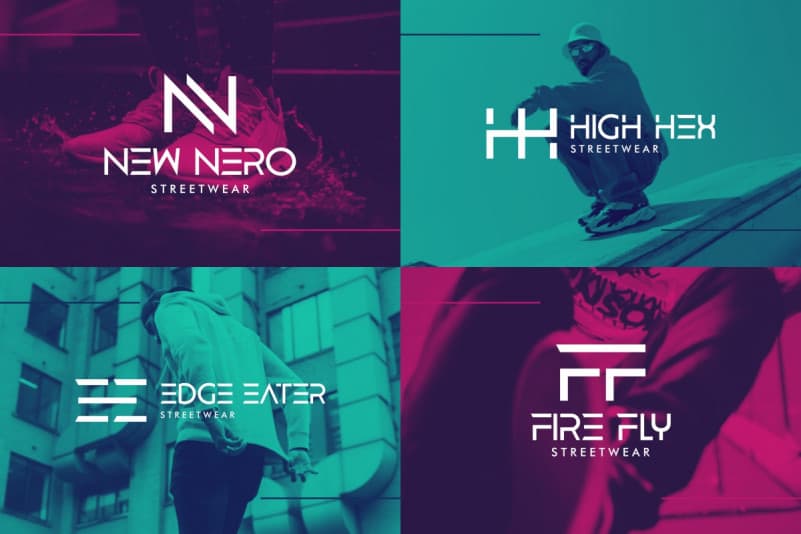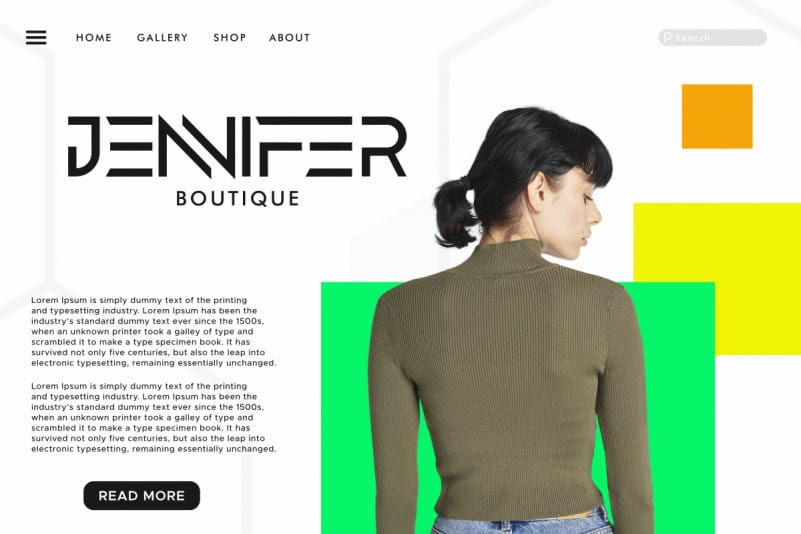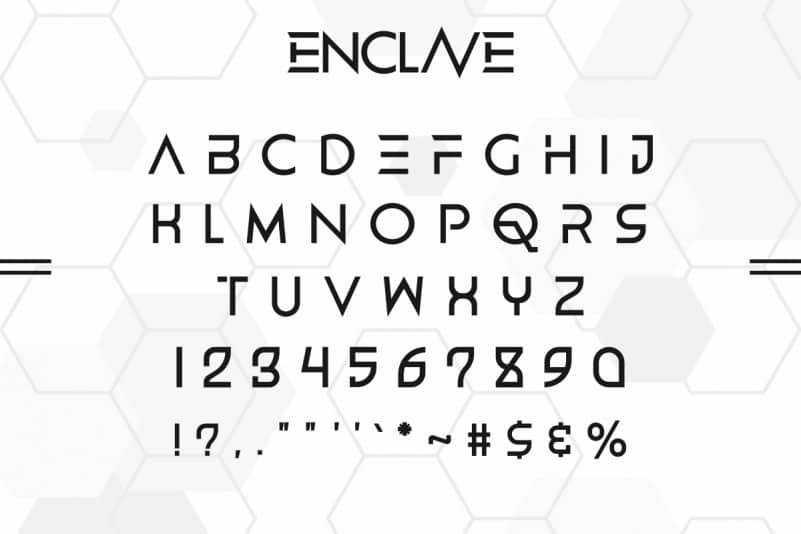
ENCLAVE Display Font
ENCLAVE Display Font is remotely made by RaisProject team in Indonesia. The font was handcrafted for any your special projects including : headlines, promotion, events, branding, advertising, magazine, signage, invitation, stationery, social media posts, label, or and any projects that need unique strong style. The theme/industries of this font is Futuristic, Beauty, Technology, Game, Magazine, Music, Spaceship, aircraft etc. ENCLAVE Font includes full set of gorgeous uppercase and lowercase letters and numerals characters.